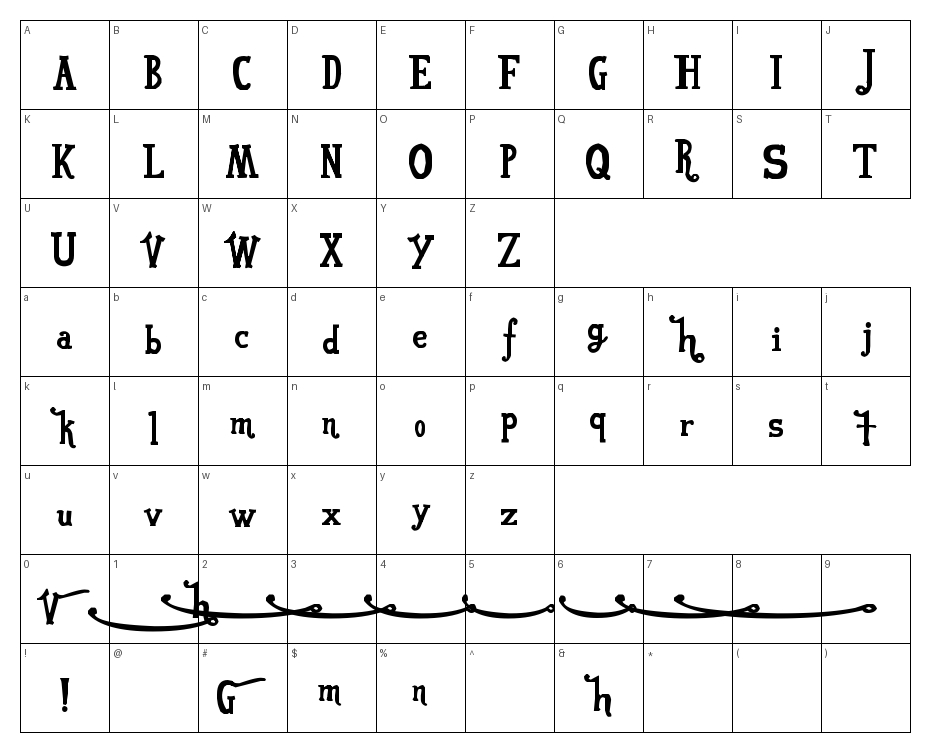
My Version of the Classic VonDutch Logo using the existing letters and completing the alphabet plus the typical underlines ind different lengths - this font is truly new and unique, I have'nt seen anything like it lately!!!
Font Name: VonFont
Designer Name: El Stinger